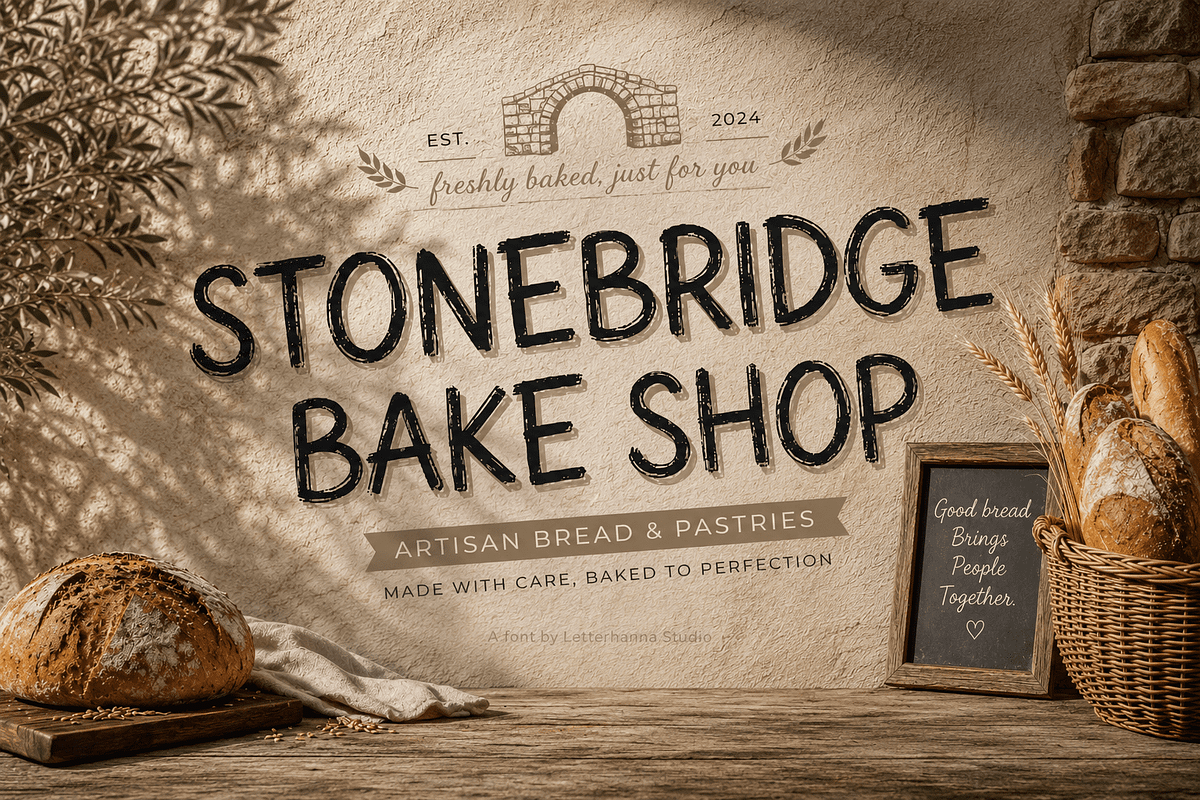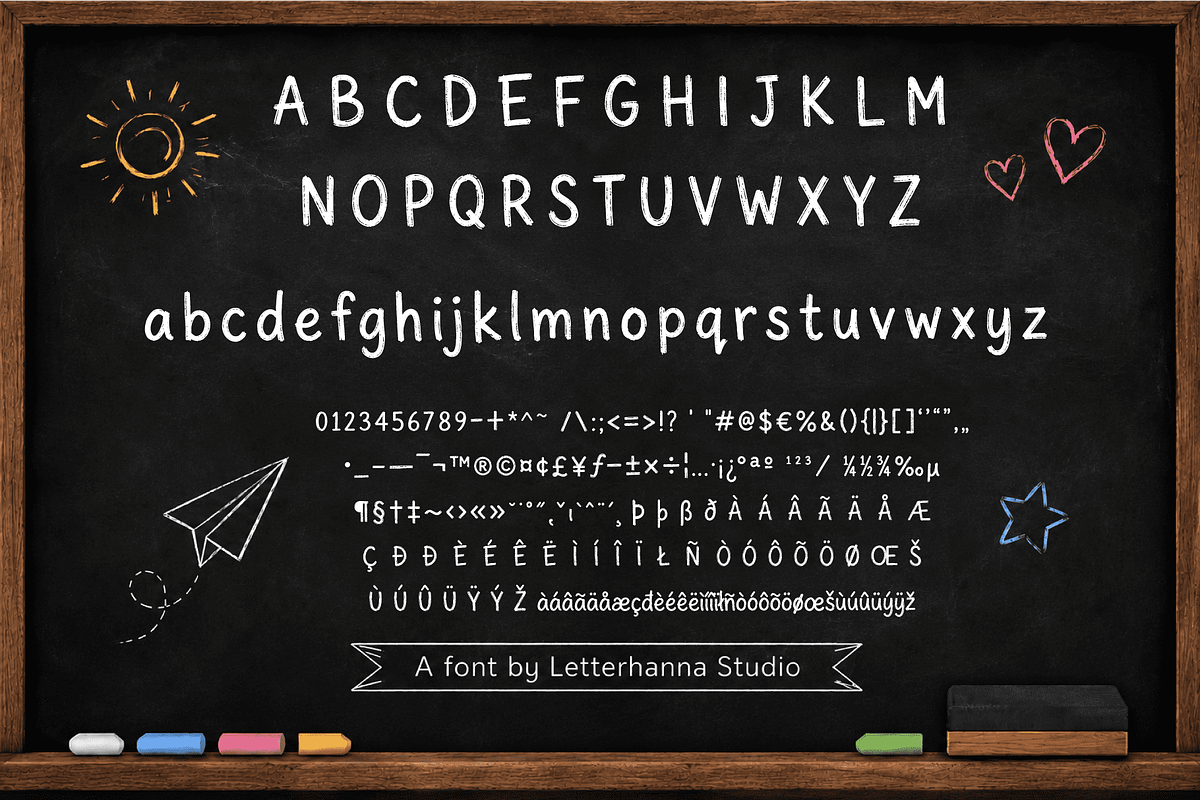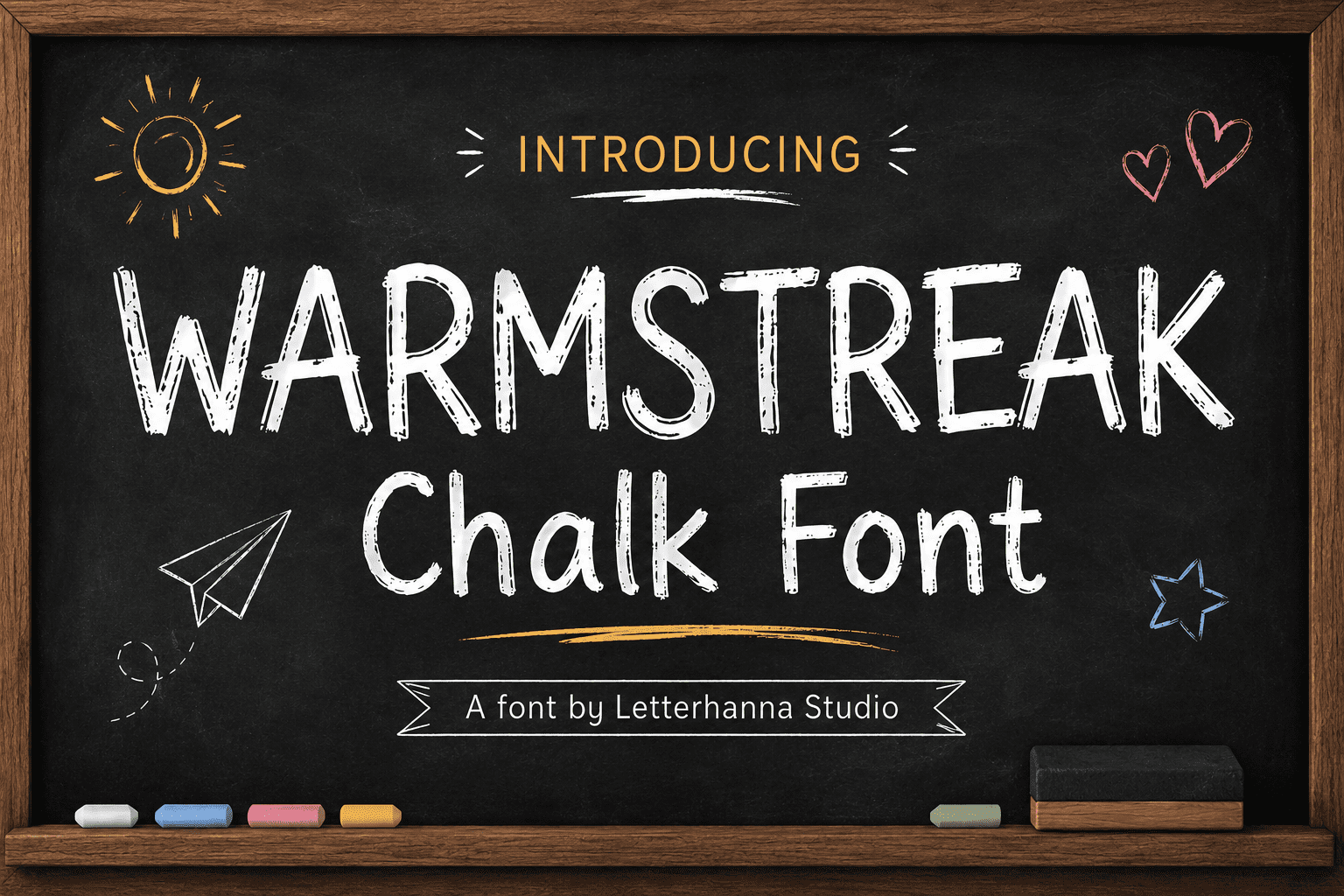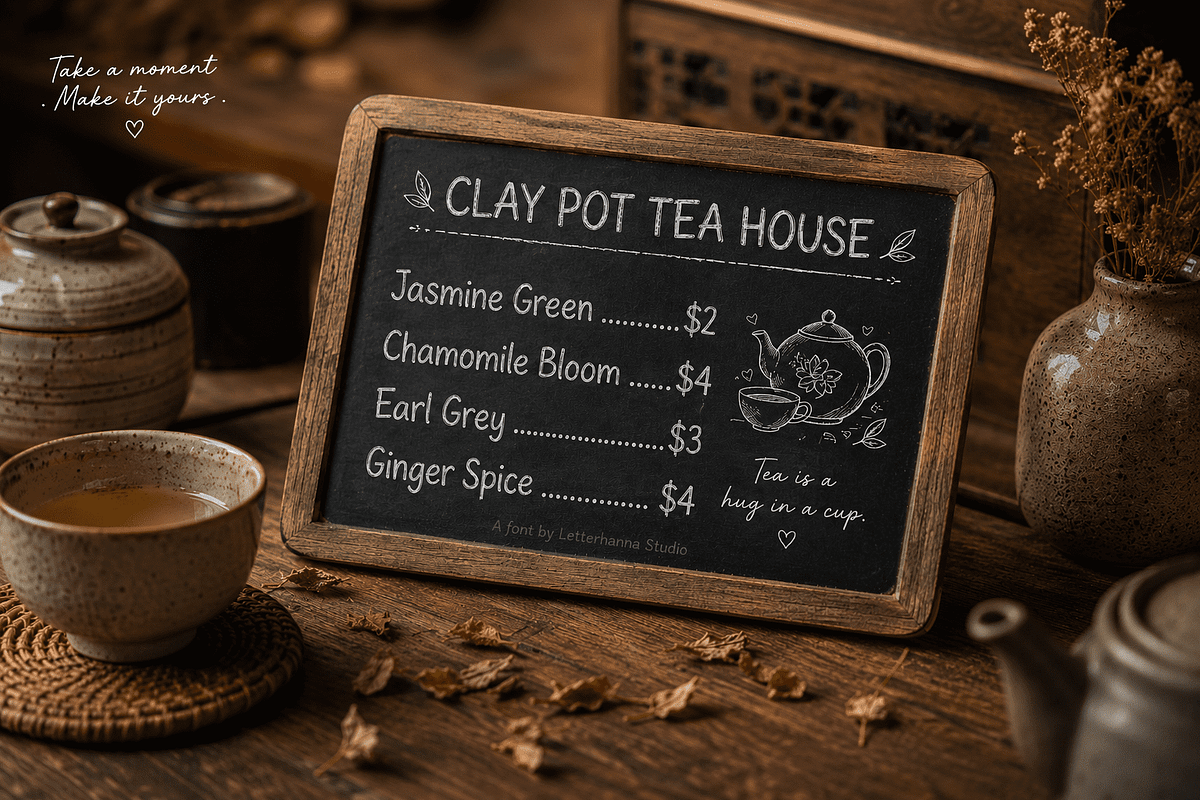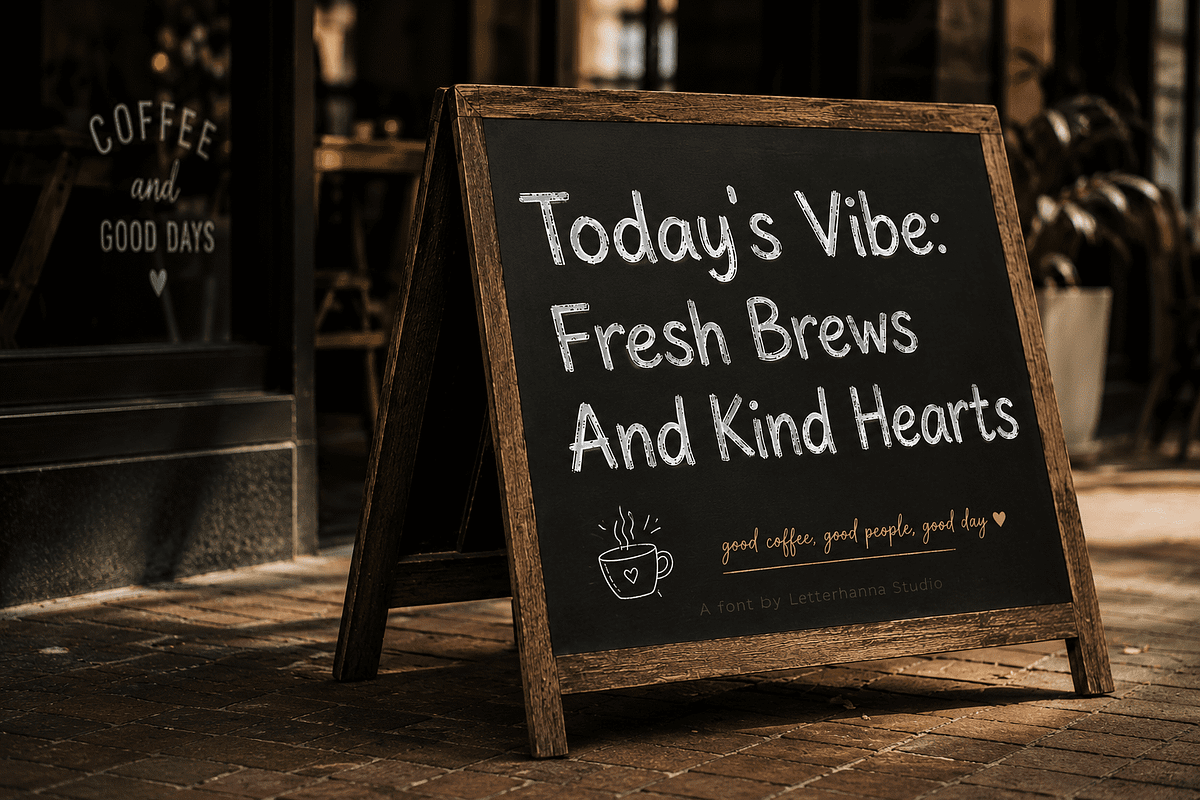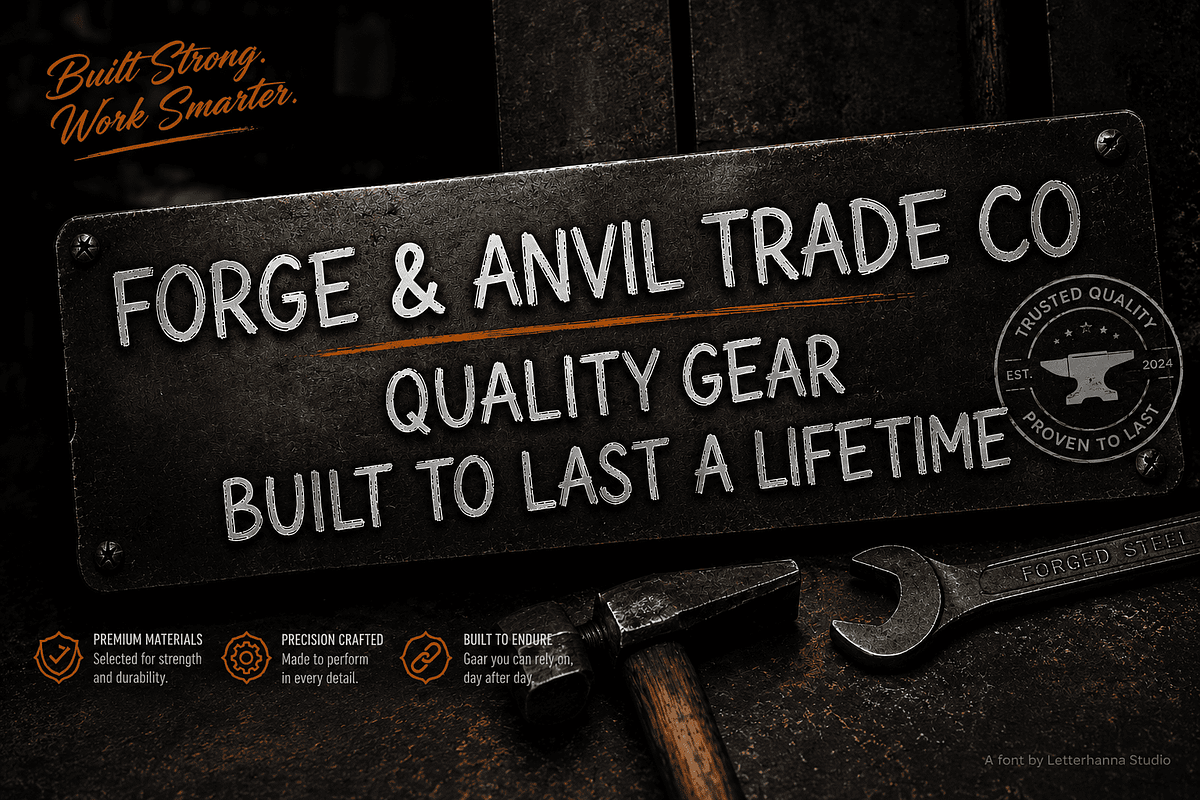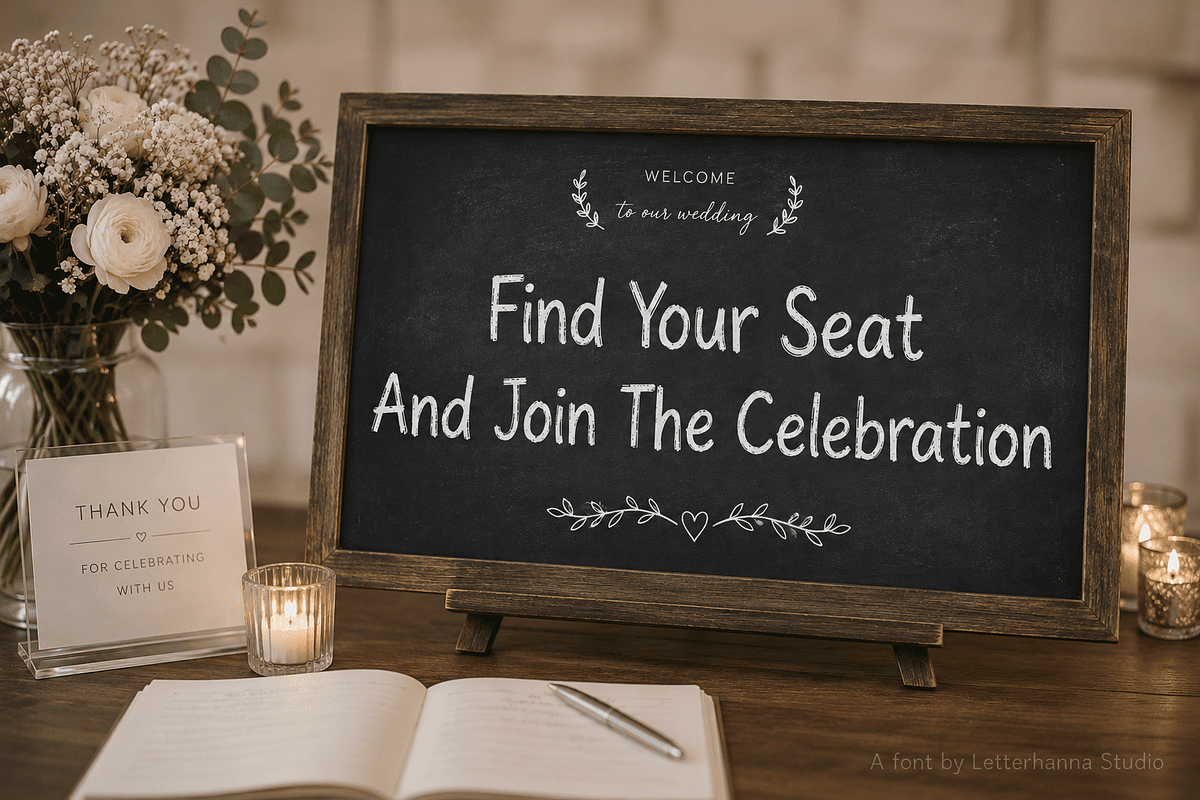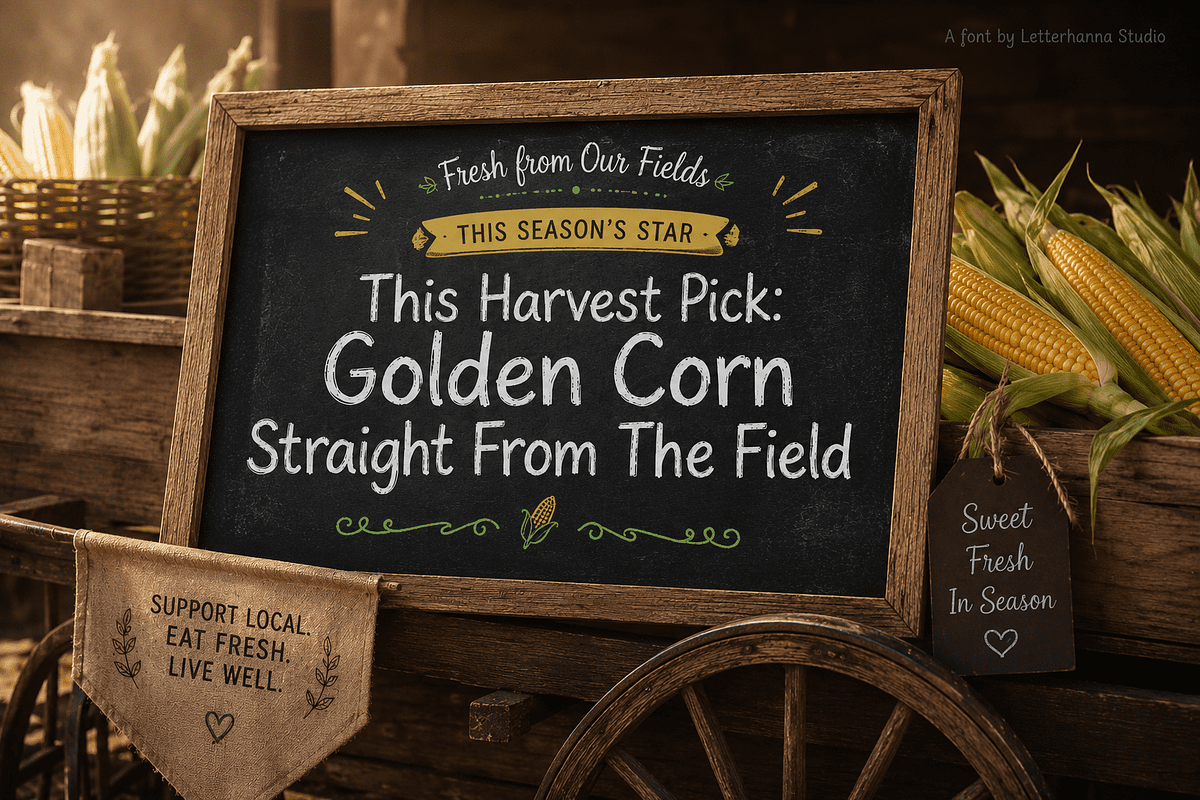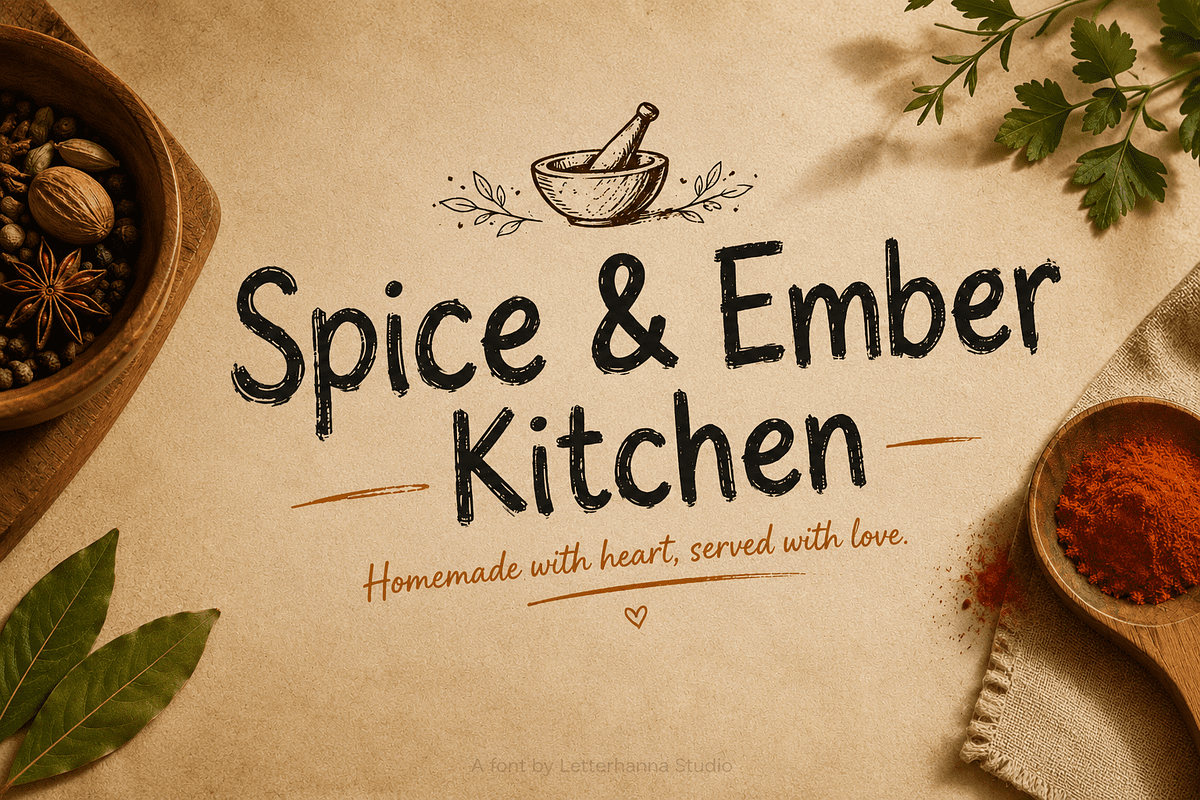
Warmstreak Chalk Font
Every great chalk sign starts with a steady hand and a bit of imperfection, and that is exactly what Warmstreak brings to your designs. This is a rugged, hand textured font duo built for makers, bakers, and small brands who want their lettering to feel crafted, not computer generated, and noticed, not ignored.
The uppercase letterforms are bold and chunky, dragged with rough, sketchy strokes that mimic real chalk on slate. The lowercase set shifts into a looser, flowing script, giving you a versatile pairing for headlines, labels, and longer lines of text alike, without ever feeling stiff or mismatched. A full set of numbers and punctuation rounds out the family for everyday use.
Warmstreak was shaped with the artisan in mind, the baker writing the day's specials, the market vendor labeling fresh produce, the small studio hand lettering its very first product line. It carries the texture of real chalk and the energy of someone who genuinely loves what they make, flaws and all.
Drop it into bakery packaging, rustic wedding stationery, cafe menus, farmhouse style branding, or seasonal market signage, and watch it add instant warmth and personality. It is bold enough to lead a headline, yet textured enough to feel handmade for hours of creative use.